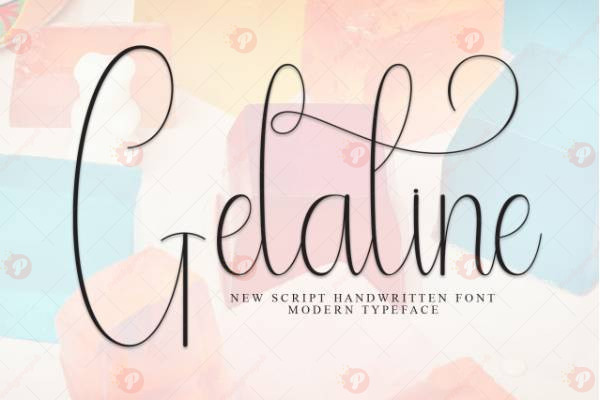
The Gelatine Handwritten Font Free is a fun and playful script typeface that captures the charm of hand-drawn lettering. With its organic strokes, casual curves, and friendly vibe, this font is perfect for branding, invitations, posters, packaging, greeting cards, and social media graphics.
Its natural handwritten feel makes it an excellent choice for projects that need a personal, creative, and approachable look. Whether you’re designing for DIY crafts, wedding stationery, lifestyle blogs, or fun product packaging, the Gelatine Handwritten Font Free adds a warm and authentic touch.
Typeface: Script / Handwritten / Display
Style: Playful / Casual / Handmade / Organic